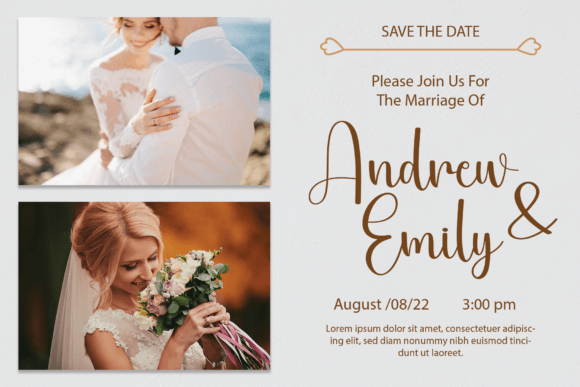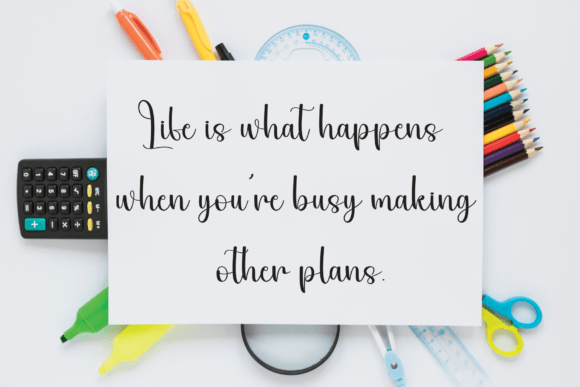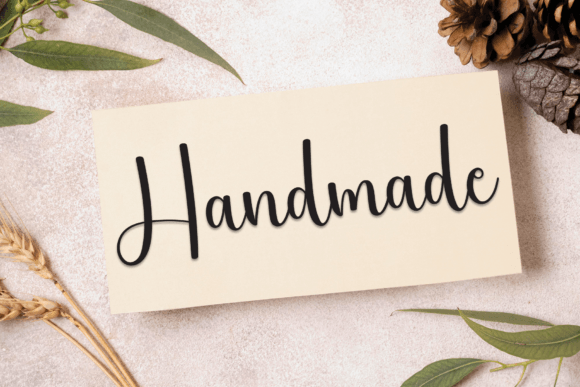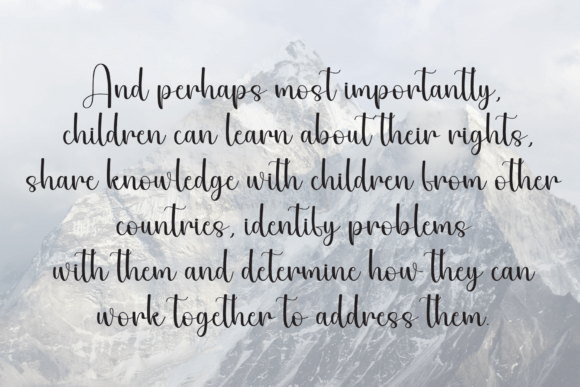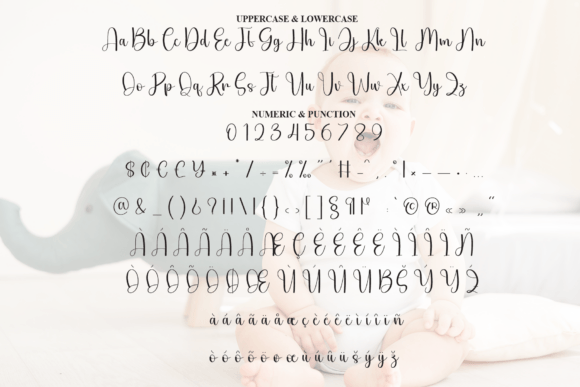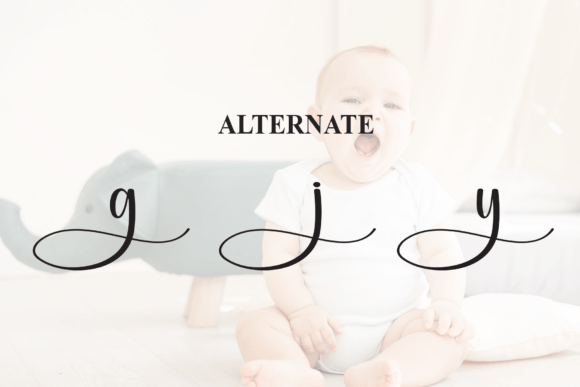
Babyish Font: Elevate Your Designs with Elegance and Charm
In the world of typography, fonts play a crucial role in conveying the tone and personality of a design. For designers and crafters looking to add a touch of sophistication and warmth to their projects, the Babyish Font is an excellent choice. This stylish handwritten script font is designed to exude elegance and charm, making it perfect for a variety of applications, from invitations and branding to social media and more.
The Characteristics of Babyish Font
Babyish Font is a beautifully crafted handwritten script font that boasts fluid strokes and a natural flow. Its captivating and sophisticated look is sure to elevate any design, adding a personal touch that sets it apart from more traditional fonts. The font’s elegant and charming appearance makes it an excellent choice for designers and crafters looking to create unique and eye-catching projects.
Uses of Babyish Font
The versatility of Babyish Font makes it suitable for a wide range of applications. Here are some of the ways you can use this beautiful font to enhance your designs:
- Invitations: Whether you’re designing wedding invitations, baby shower invites, or birthday party announcements, Babyish Font is the perfect choice. Its elegant and charming appearance will add a touch of sophistication to your designs.
- Branding: If you’re looking to create a unique and memorable brand identity, Babyish Font can help. Its stylish and handwritten appearance makes it perfect for logos, packaging, and other branding materials.
- Social Media: Add a personal touch to your social media posts and stories with Babyish Font. Its elegant and charming appearance will help your content stand out and leave a lasting impression on your followers.
- Crafting: If you’re a crafter looking to add a personal touch to your projects, Babyish Font is an excellent choice. Use it to create beautiful journal pages, scrapbooking layouts, and more.
Why Choose Babyish Font?
With so many fonts available, why choose Babyish Font? Here are just a few reasons why this font stands out:
- Elegance and Charm: Babyish Font exudes elegance and charm, making it perfect for designers and crafters looking to add a touch of sophistication to their projects.
- Versatility: This font is suitable for a wide range of applications, from invitations and branding to social media and crafting.
- Easy to Read: Despite its elegant and cursive appearance, Babyish Font is easy to read, making it perfect for body text and other applications where legibility is important.
- Unique and Creative: With Babyish Font, you can add a personal touch to your designs and create unique and eye-catching projects that stand out from the crowd.
Tips for Using Babyish Font
Here are a few tips for getting the most out of Babyish Font:
- Pair it with Other Fonts: Experiment with pairing Babyish Font with other fonts to create a unique and visually appealing combination.
- Use it for Headings: Babyish Font is perfect for headings and titles, where its elegant and charming appearance can really shine.
- Add a Personal Touch: Use Babyish Font to add a personal touch to your designs, whether it’s a handwritten note or a custom illustration.
In conclusion, Babyish Font is a beautiful and versatile handwritten script font that is perfect for designers and crafters looking to add a touch of elegance and charm to their projects. Its fluid strokes and natural flow create a captivating and sophisticated look that is sure to elevate any design. Whether you’re designing invitations, branding materials, or social media posts, Babyish Font is an excellent choice. So why not give it a try and see how it can enhance your designs?